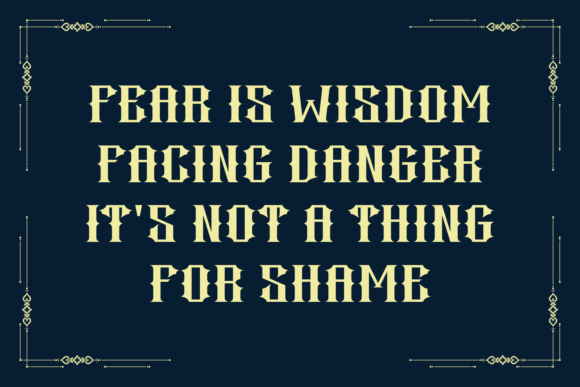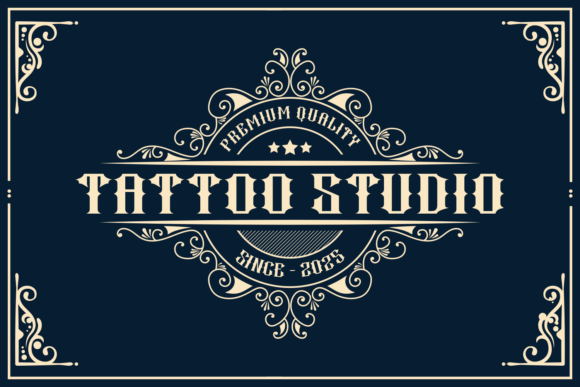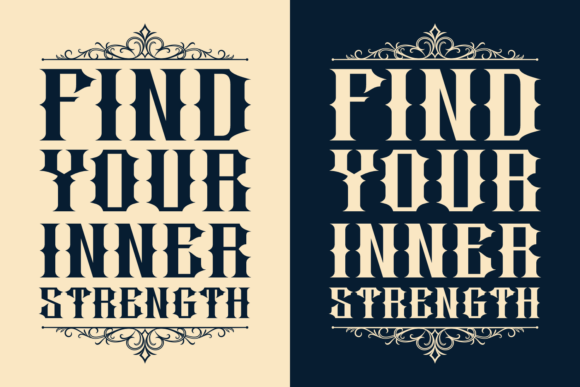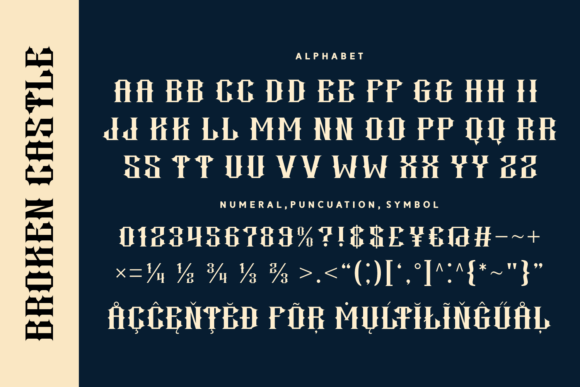
Unveiling the Broken Castle Font: A Modern Blackletter Masterpiece
In the realm of typography, few fonts manage to evoke the mystique of ancient ruins and the allure of dark fantasy as effectively as the Broken Castle font. This modern blackletter typeface is a masterful blend of historical depth and bold, modern design, making it an indispensable tool for designers and crafters seeking to infuse their projects with a sense of mystery and medieval lore.
The Inspiration Behind Broken Castle
Broken Castle draws its inspiration from the crumbling facades of ancient castles and the dark, fantastical worlds often found in fantasy literature and role-playing games (RPGs). Its design is characterized by tall characters, sharp terminals, and vintage curves, all of which work in harmony to create a sense of drama and storytelling. This font is not just a collection of letters; it’s a gateway to a world of medieval fantasy, perfect for RPG titles, fantasy book covers, castle-themed branding, and vintage banners.
The Broken Castle font is distinguished by several key design characteristics that set it apart from other blackletter typefaces:
- Tall Characters: The font features elongated characters that convey a sense of grandeur and monumentality, reminiscent of Gothic architecture.
- Sharp Terminals: The sharp, pointed terminals of the letters add a touch of drama and intensity, evoking the imagery of ancient stone carvings.
- Vintage Curves: The curves of the letters are carefully crafted to mimic the worn, weathered look of ancient texts and manuscripts, adding to the font’s vintage appeal.
One of the standout features of the Broken Castle font is its versatility. While it is deeply rooted in traditional blackletter design, it also incorporates modern elements that make it suitable for a wide range of projects. Whether you’re working on a traditional design project, such as a historical drama poster, or something more experimental, like a modern fantasy novel cover, Broken Castle adapts seamlessly.
This adaptability makes Broken Castle an excellent choice for:
- RPG Titles: Add a touch of medieval fantasy to your game titles with a font that screams adventure and mystery.
- Fantasy Book Covers: Draw readers into your fantasy world with a cover that features a bold, gothic typeface.
- Castle-Themed Branding: Create a brand identity that evokes the grandeur and history of ancient castles.
- Vintage Banners: Add a historical touch to your banners with a font that looks like it’s been plucked straight from the annals of history.
Why Choose Broken Castle?
In a sea of generic fonts, Broken Castle stands out for its unique blend of historical authenticity and modern flair. Here are a few reasons why designers and crafters are gravitating towards this remarkable typeface:
- Drama and Storytelling: The font’s design inherently suggests drama and storytelling, making it perfect for projects that aim to captivate and intrigue.
- Classic Gothic Letterforms: For those looking to evoke a sense of classic gothic style, Broken Castle delivers with its authentic blackletter design.
- Easy to Read: Despite its ornate appearance, the font is surprisingly legible, making it suitable for both headlines and body text.
The Broken Castle font is a powerful tool for anyone looking to add a touch of medieval mystery and dark fantasy to their designs. Its unique blend of historical depth and modern design elements makes it a versatile choice for a wide range of projects. Whether you’re a designer working on a fantasy book cover, a gamer creating titles for your RPG, or a craftsperson looking for the perfect font for your handmade banners, Broken Castle is sure to bring your vision to life in a way that’s both dramatic and unforgettable.